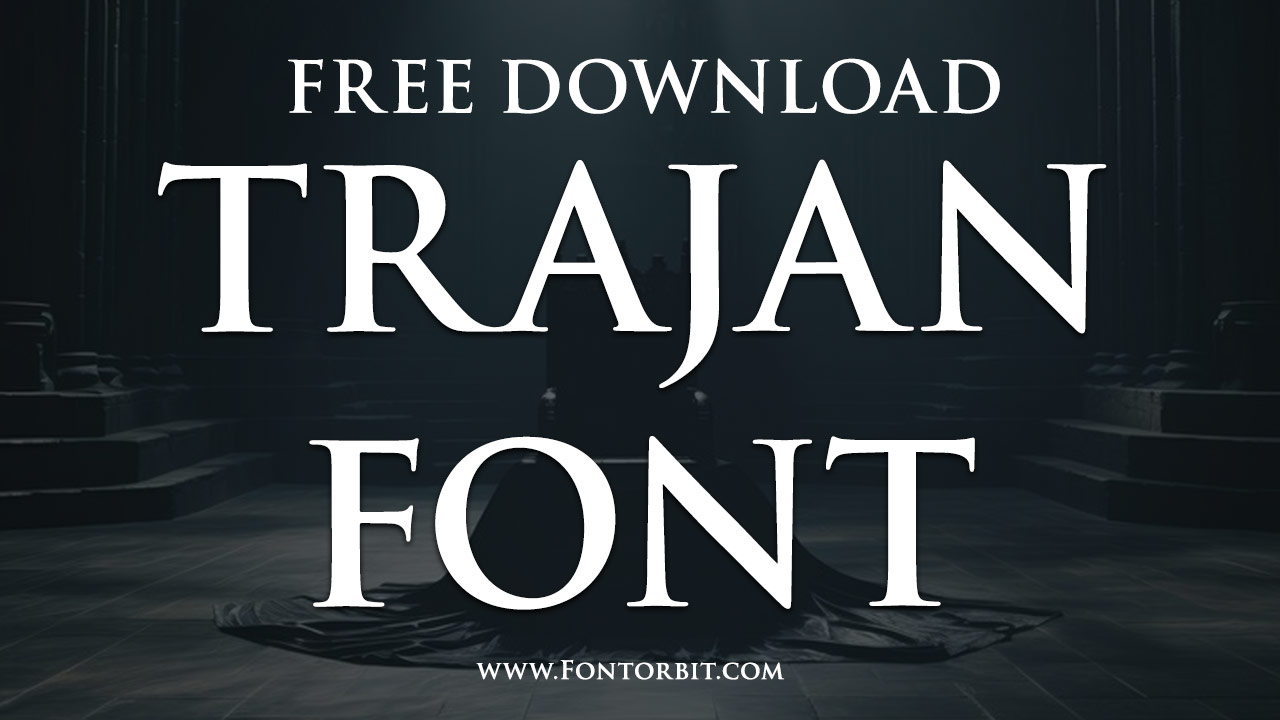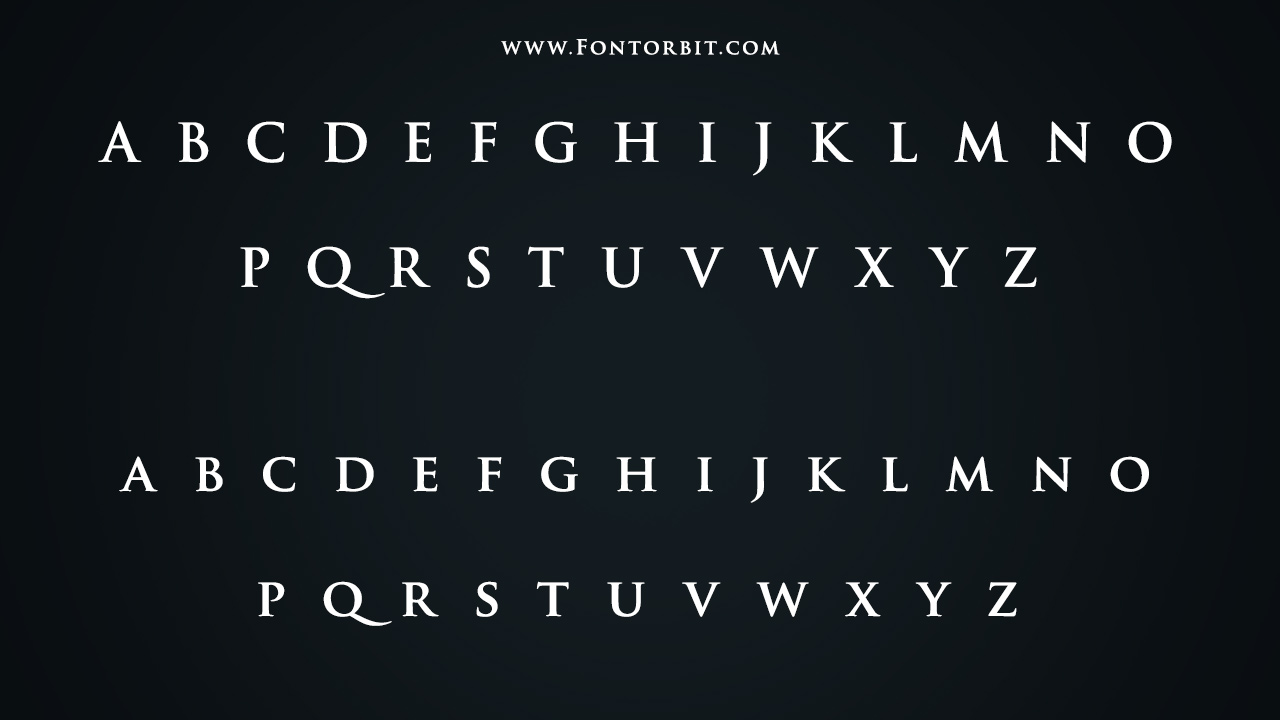
Carol Twombly designed the timeless serif typeface Trajan, which Adobe released in 1989. The letterforms of ancient Roman inscriptions inspired it, and its name comes from Trajan’s Column in Rome.
Falling under the “display” font category, Trajan’s classical and formal aesthetic has earned wide appreciation. Numerous films, posters, and prestigious publications have used it.
Trajan Family Includes
Trajan font is part of the serif font family, known for its clean and sharp serifs. Here is a breakdown of the Trajan family:
a. Trajan Regular
b. Trajan Bold
This family delivers versatility in both print and digital mediums.
Notable Uses of Trajan
Trajan has been widely used in iconic movie posters, including:
- Movie Posters
- Awards
- Governmental and Educational
Trajan’s timeless appeal makes it a top choice for projects that require a sense of tradition, elegance, and authority. Its long history in cinematic and formal design only strengthens its position as a go-to typeface for serious, professional, and prestigious projects.
3.What Are The Common Uses Of The Trajan Font?
Designers often use Trajan in movie posters, event programs, and formal documents.
4.Is Trajan Suitable For Body Text?
Trajan suits titles, logos, and headlines better due to its display nature.
5.What Font Pairings Work Well With Trajan?
Trajan pairs well with modern sans-serif fonts like Helvetica or Futura.
6.Can Trajan Be Used In Web Design?
Yes, it can, but due to its formal appearance, it’s typically reserved for headlines or banners.
7.What Is The Difference Between Trajan And Trajan Pro?
Trajan Pro includes more glyphs and supports additional languages than the original Trajan font.